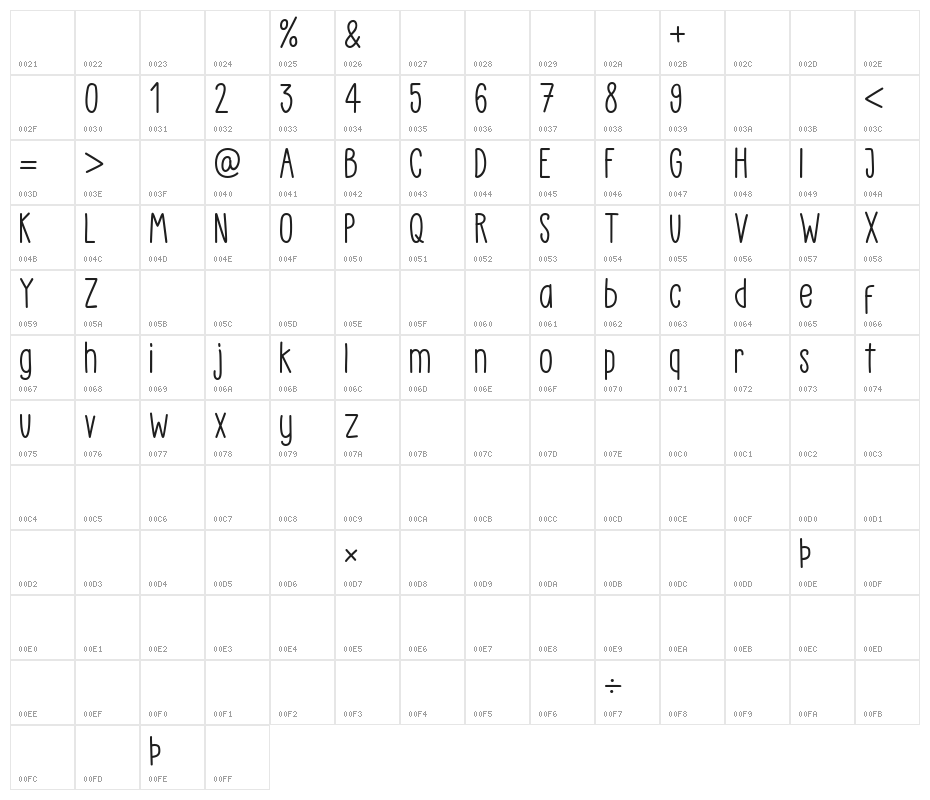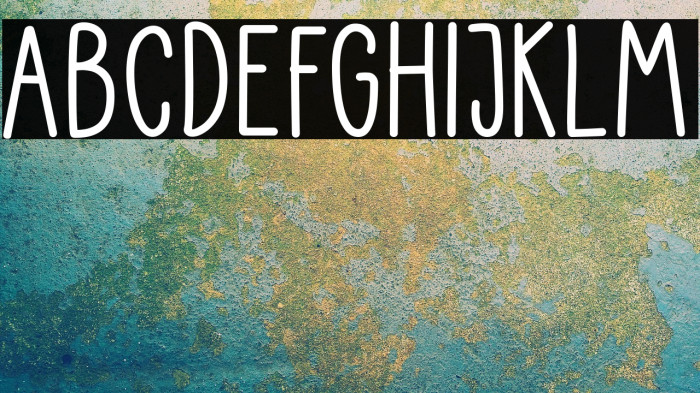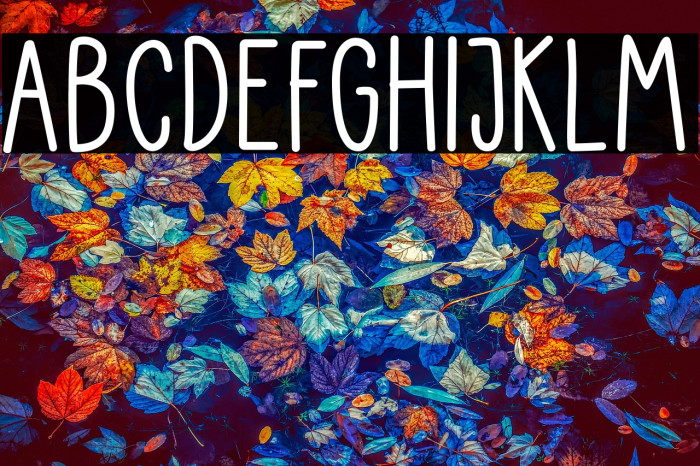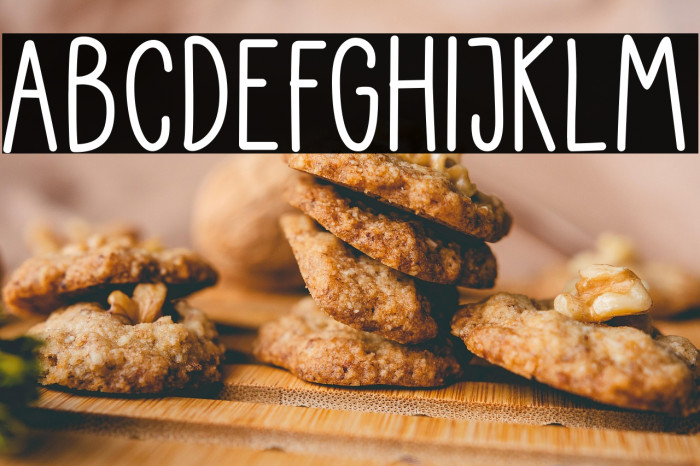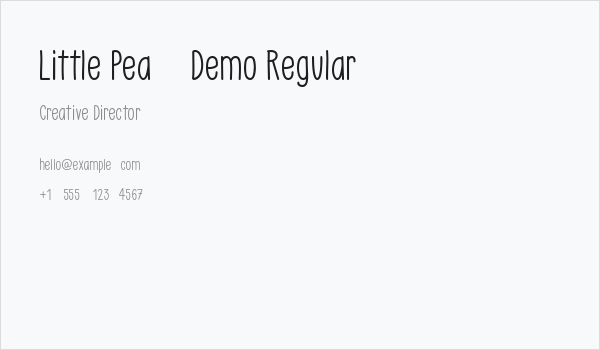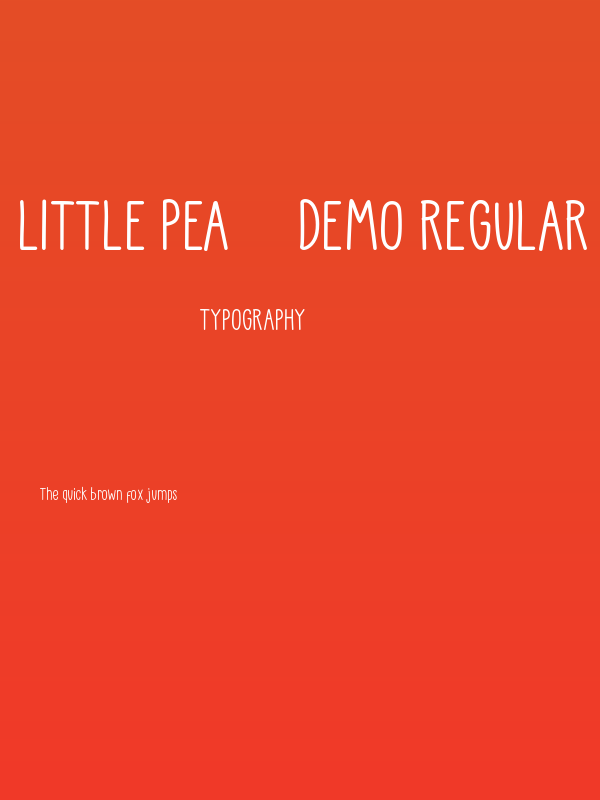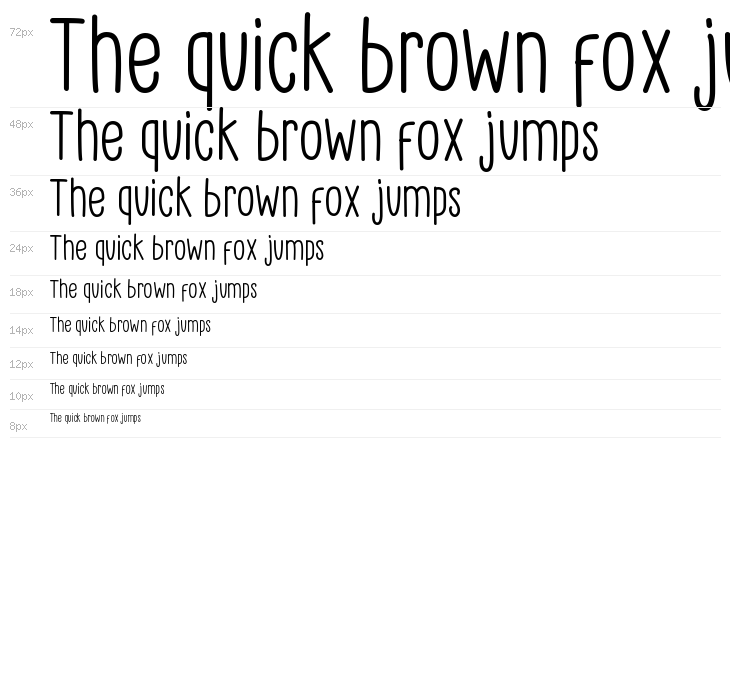
Little Pea - Demo Regular Font
Little Pea - Demo Regular Description
This playful and whimsical font features tall, narrow characters with a hand-drawn aesthetic. The letters have a consistent stroke width, giving them a clean and uniform appearance. The uppercase and lowercase letters maintain a similar style, with rounded edges and a slightly elongated form. The numbers are equally charming, matching the overall quirky and informal vibe of the font. Special characters like the ampersand and percent sign are crafted with the same attention to detail, ensuring a cohesive look across all elements. This font exudes a friendly and approachable feel, making it ideal for projects that require a touch of personality and creativity.
| Overall Style | Whimsical |
| Proposed Projects | Ideal for children's books, playful branding, greeting cards, and creative posters. |